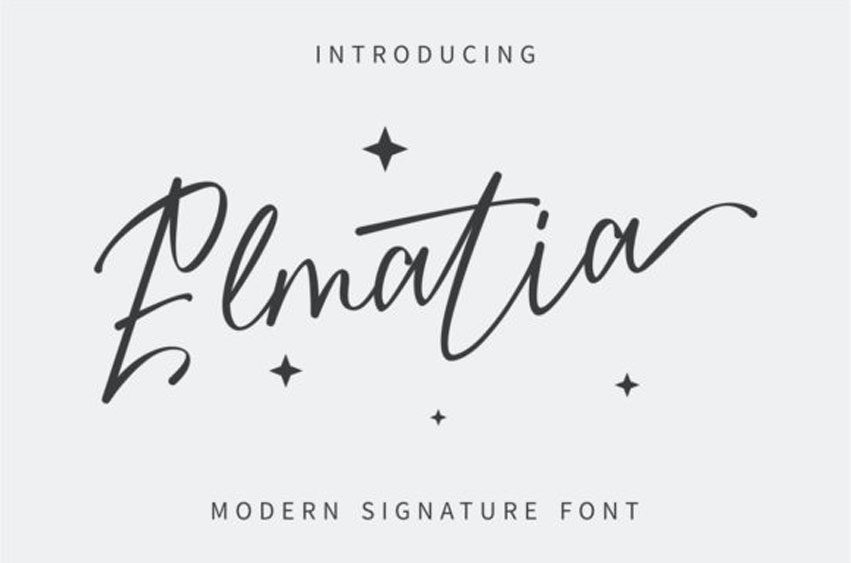
Elmatia Font is a sweet, delicate, and friendly script font that will embellish each of your creations. This font is PUA encoded, which means you can access all of the glyphs and swashes with ease!